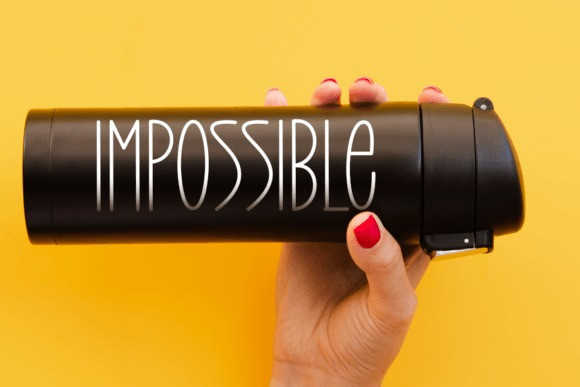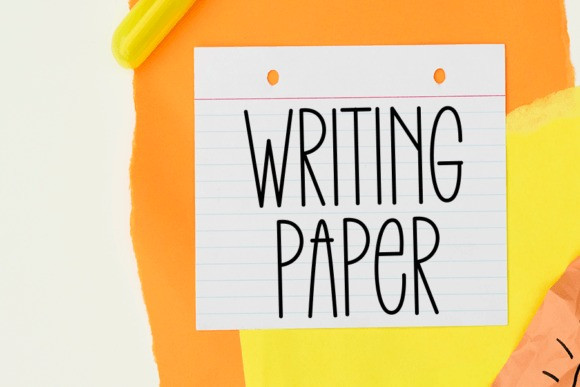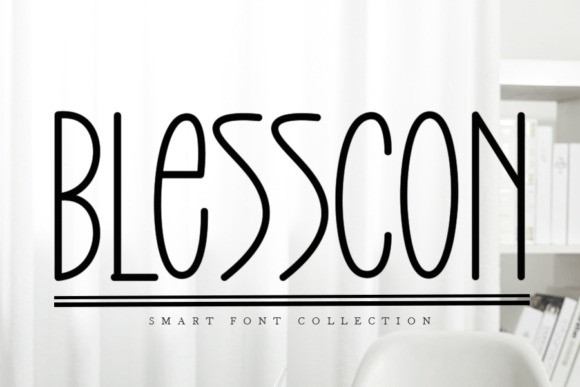
Blesscon Font
Blesscon Font is a trendy display font with a contemporary atmosphere and impeccable form, inspired by a timeless classic calligraphy. It will add elegance and class to any of your design projects.